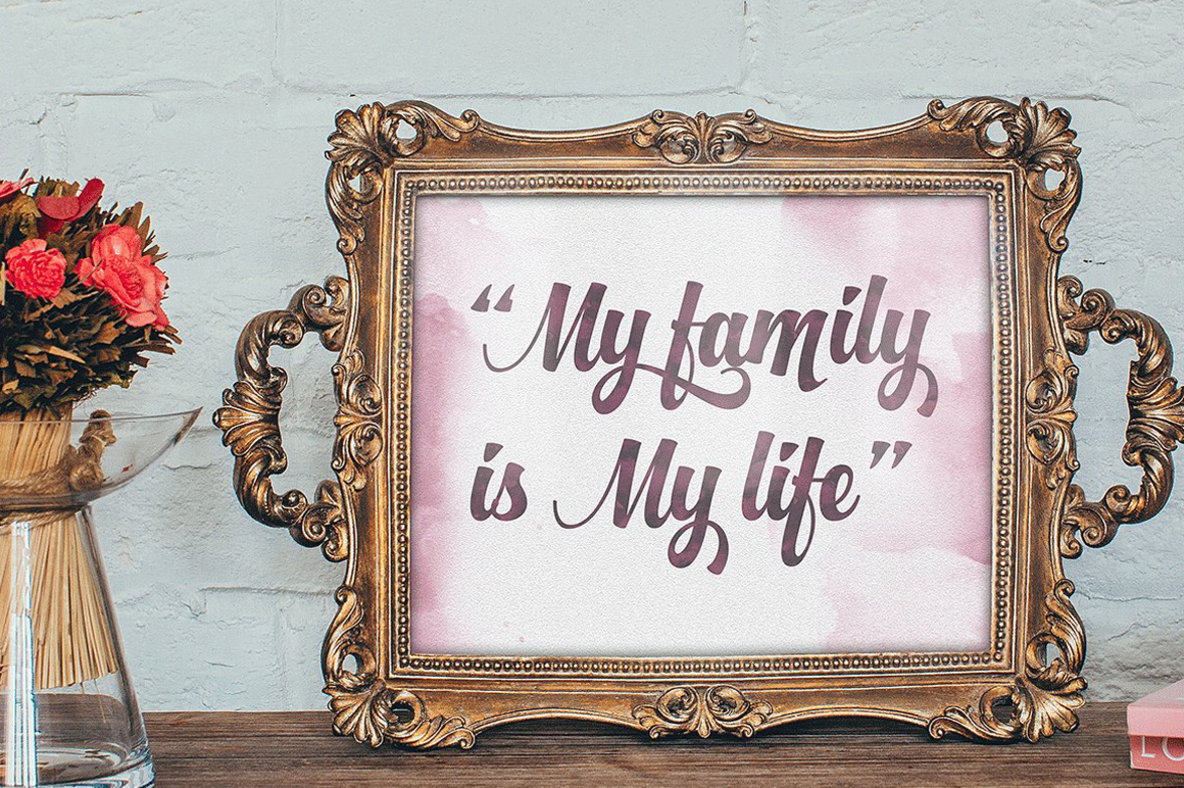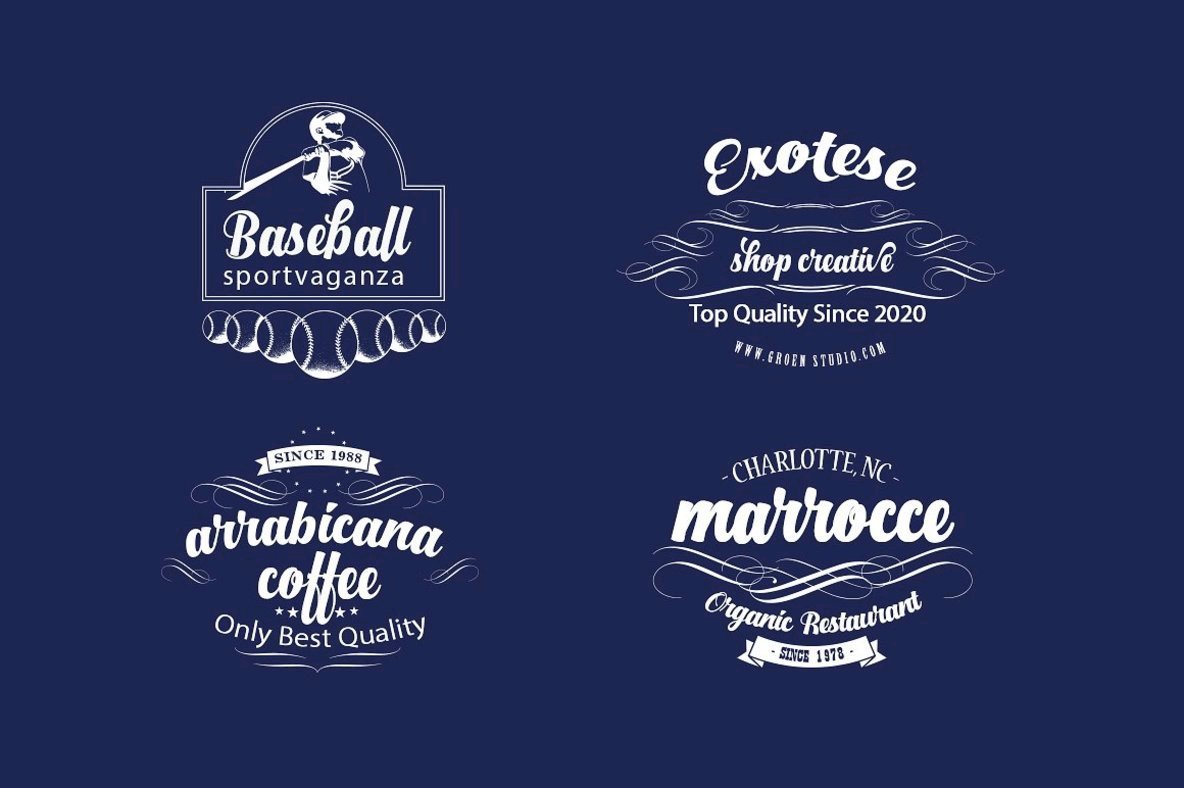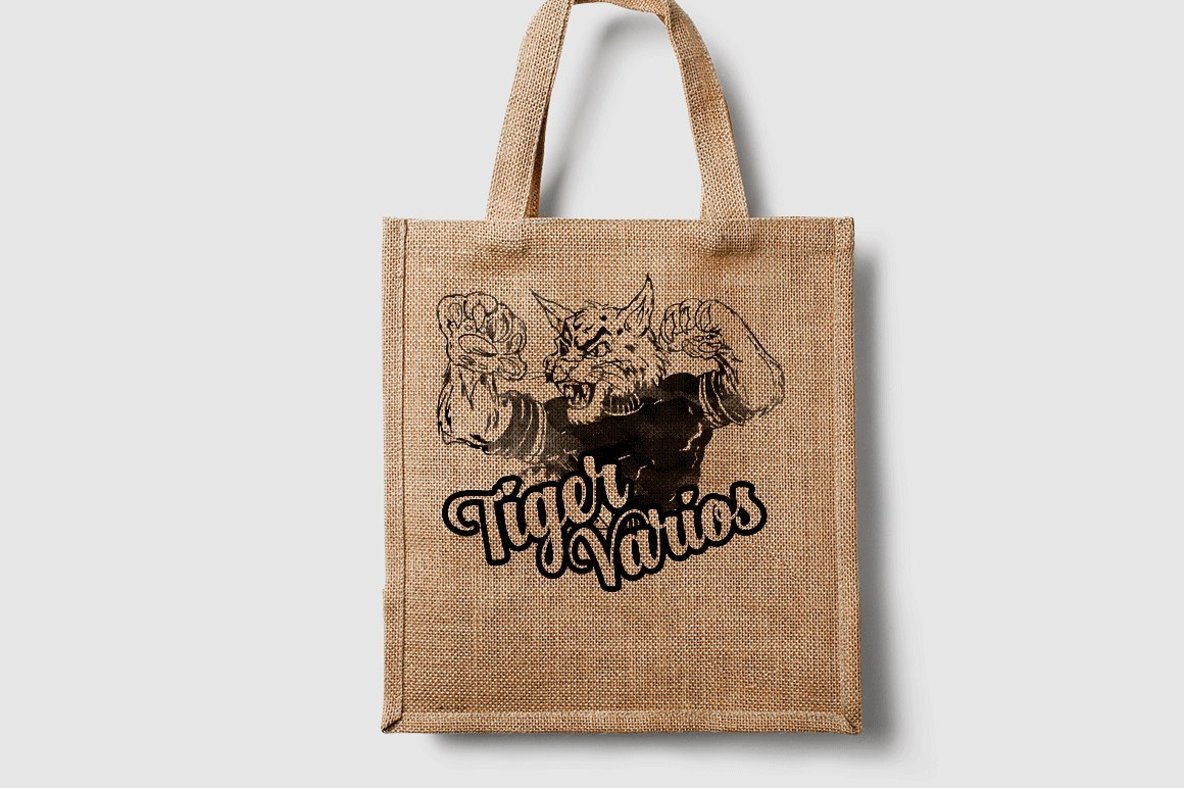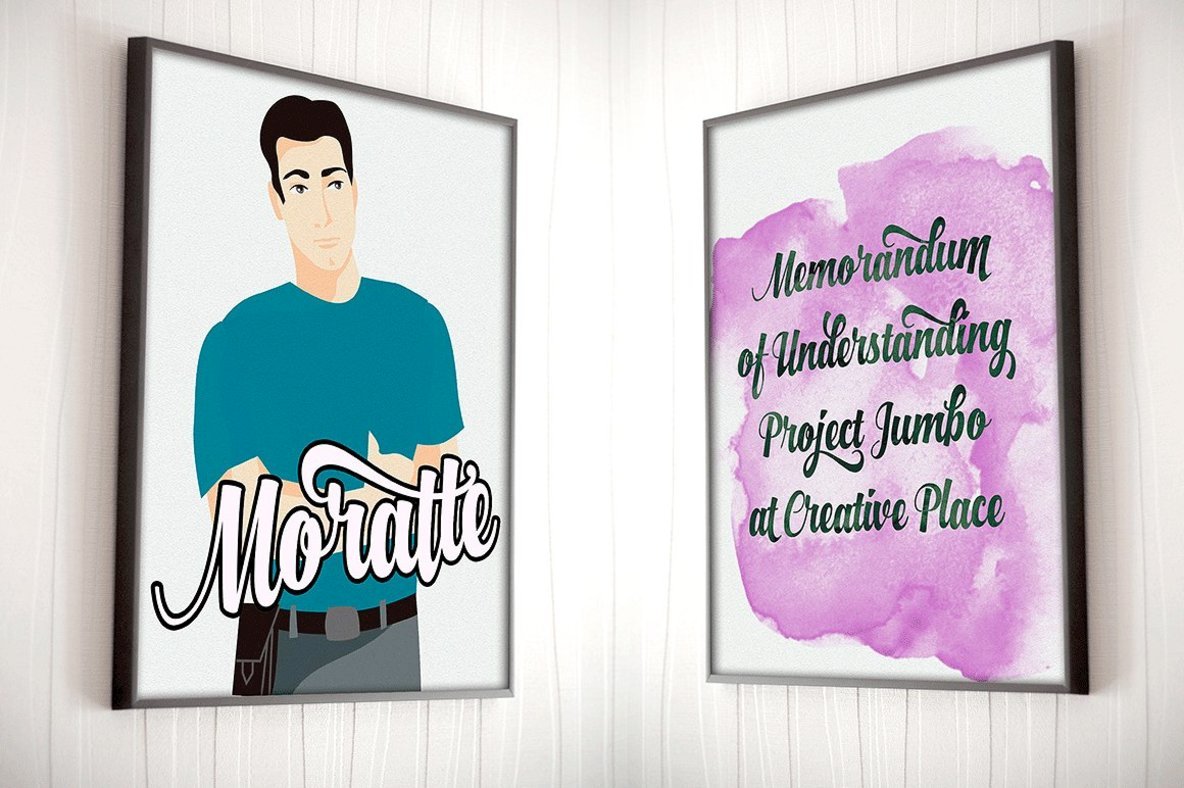
Standly
Standly by Groen Studio is a bold brush script font that strikes a balance between traditional calligraphy and contemporary flair. This typeface brings a unique touch of elegance and charm to any design project, making it an ideal choice for various creative applications. Versatile Use This font supports a wide array of European languages based on the Latin alphabet, including Breton, Catalan, Czech, Danish, and more, ensuring its utility in diverse projects. Suitable for headings, logos, wedding invitations, t-shirts, letterheads, signage, labels, news, posters, and badges, Standly adapts effortlessly to each purpose. Programs supporting OpenType features, like Adobe Illustrator CS, Adobe InDesign, and CorelDraw X6-X7, enable designers to fully utilize its stylistic alternatives.Standly: A Bold Brush Script Combining modern and calligraphic styles